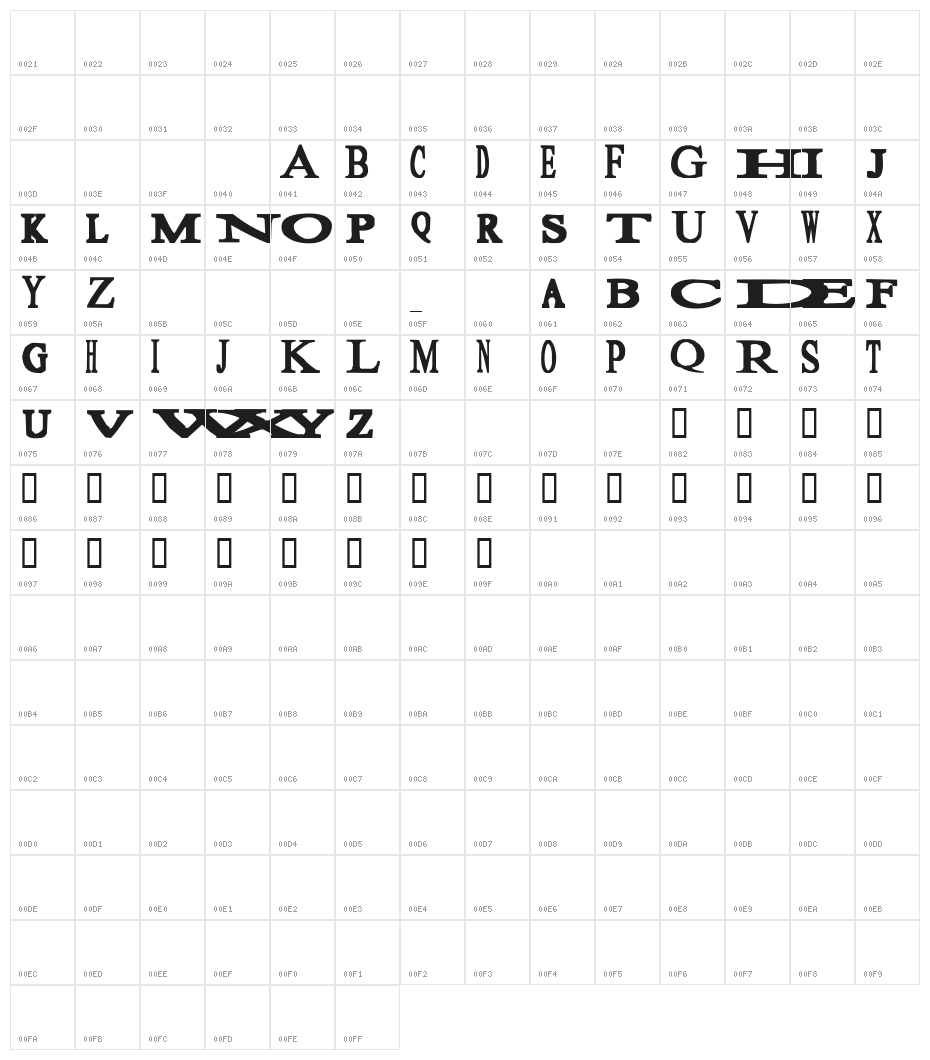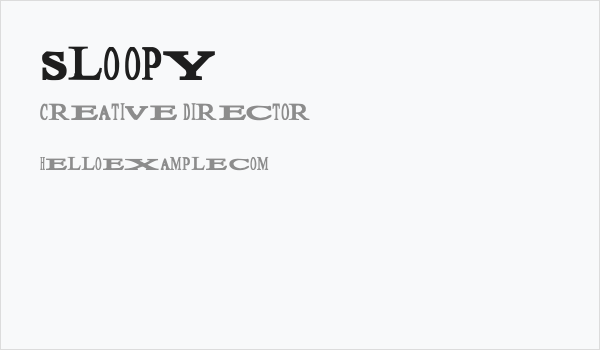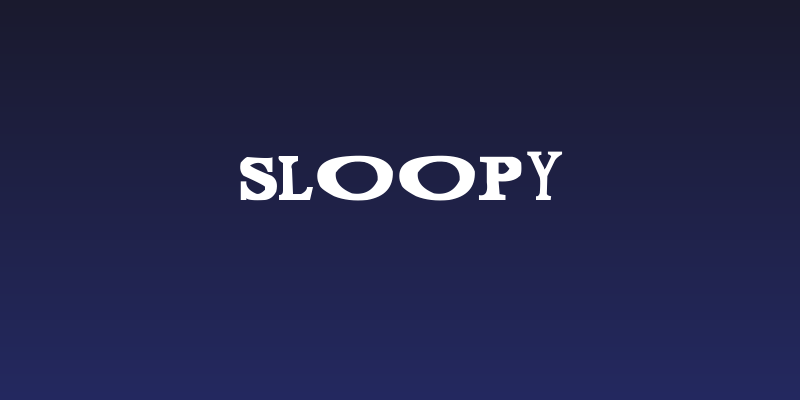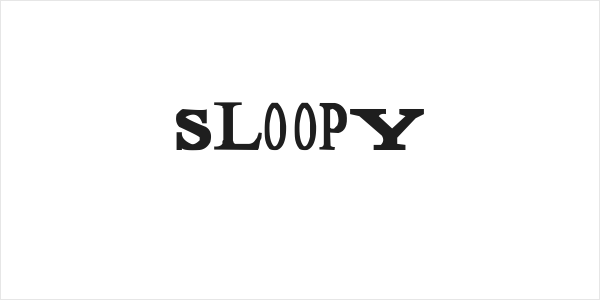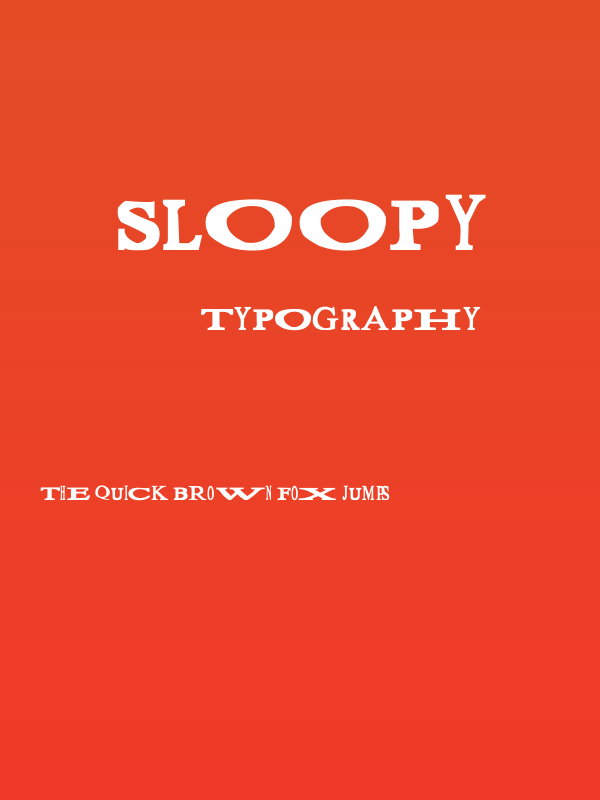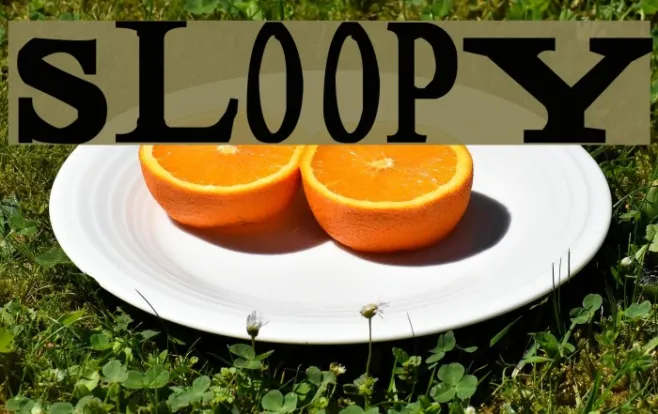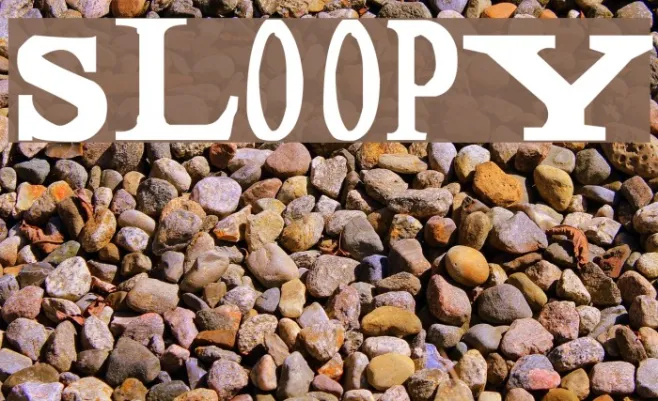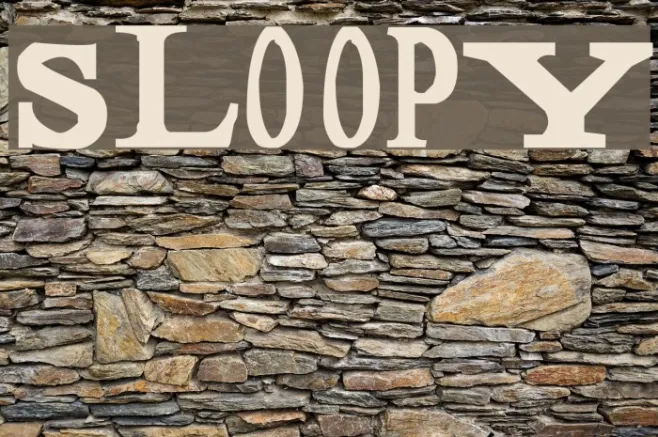
Sloopy Font
Sloopy Description
This font features a bold and dynamic style with exaggerated serifs and varying stroke widths, creating a sense of movement and flair. The uppercase letters are particularly striking, with wide, sweeping curves and sharp angles that give them a distinctive, almost theatrical appearance. The lowercase letters maintain this dramatic style, though they are slightly more restrained, offering a nice balance. The font's overall look is reminiscent of vintage circus or Wild West posters, making it ideal for projects that require a touch of nostalgia or whimsy. Its boldness ensures it stands out, making it suitable for headlines or logos where impact is essential.
| Proposed Projects | Ideal for vintage-themed posters, logos, book covers, or any design requiring a bold, nostalgic touch. |